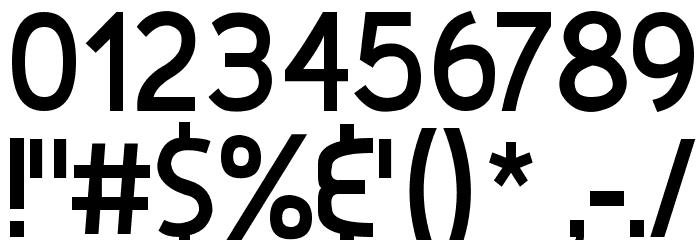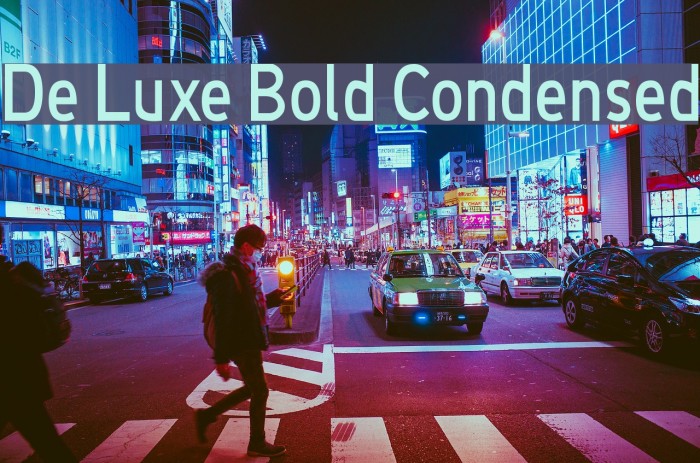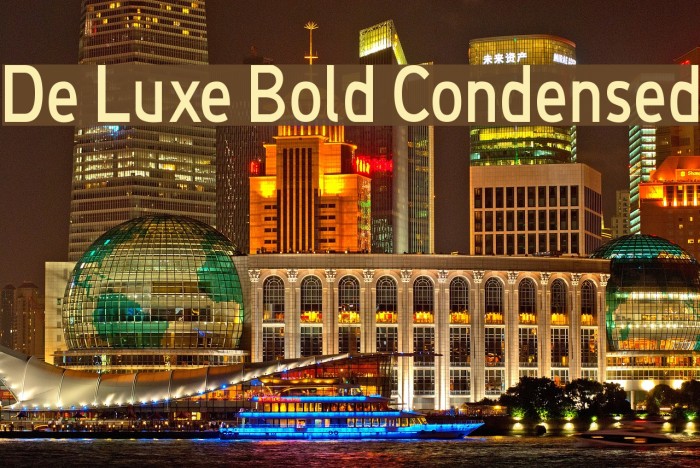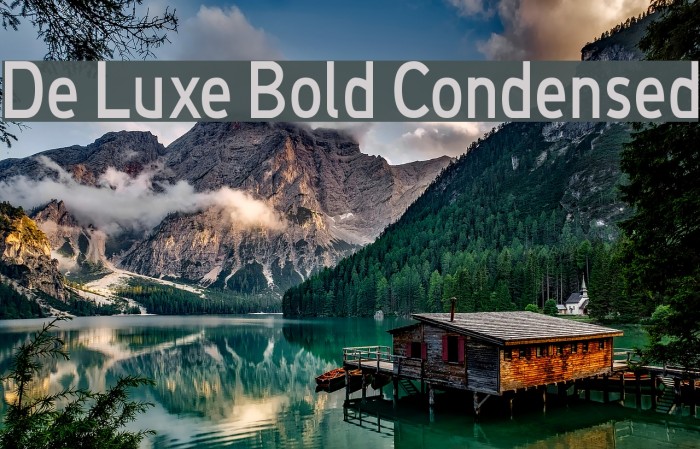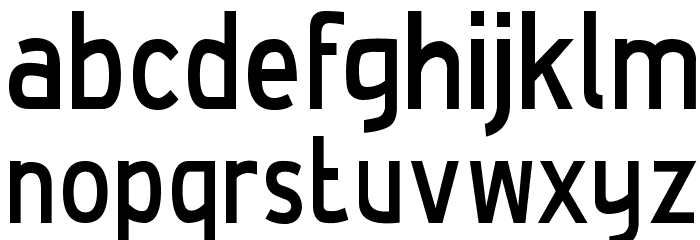
De Luxe Bold Condensed Font
This font features a bold and condensed style, characterized by its strong, geometric shapes and clean lines. The uppercase and lowercase letters maintain a consistent height, contributing to a uniform appearance. The numerals are clear and easily distinguishable, making them suitable for various applications. Special characters are well-defined, enhancing the font's versatility. The overall design is modern and professional, making it ideal for projects that require a bold statement without sacrificing readability.
A bold, condensed font with geometric shapes and clean lines.
• Font: De Luxe Bold Condensed
• Proposed Projects: Ideal for branding, headlines, posters, and advertising materials where a strong visual impact is needed.
• Category: Sans-Serif
• Bold: Yes
• Italic: No
• Weight: Bold
• Width: Condensed
• Character Spacing: Normal
• Contrast: Low
• Overall Style: Modern
• Use Case: Headlines, Logos, Posters